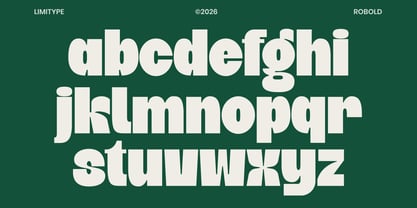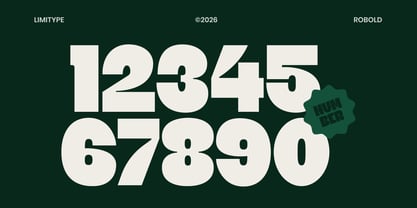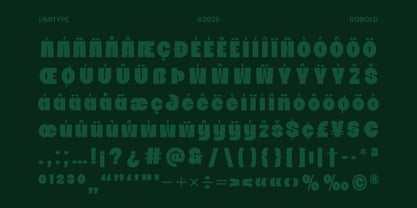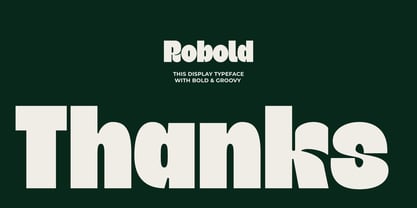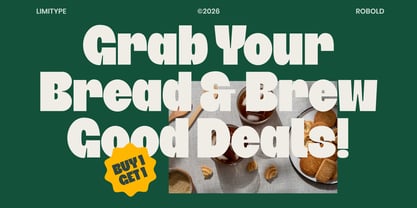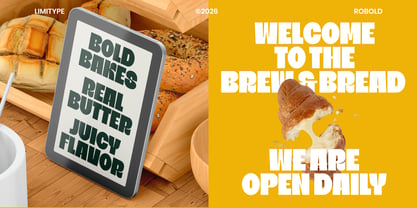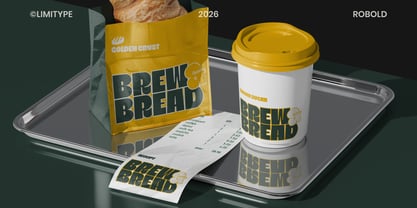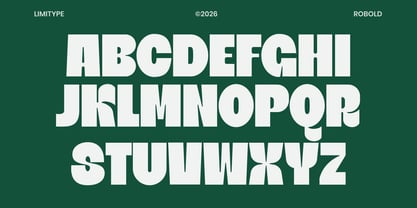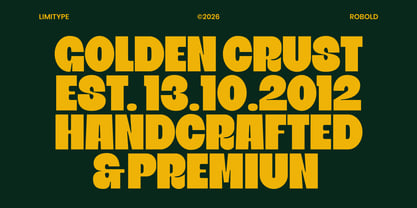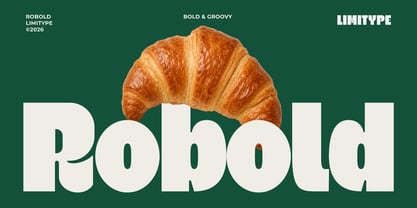
Robold
by limitype
The Robold Font Family was designed by Muhammad Muammar, Furqan Sudirman and published by limitype. Robold contains 1 styles. More about this family
Robold is a bold display font with a cheerful groovy personality, combining solid letterforms, soft rounded corners, and a retro inspired style to create typography that is eye catching, warm, confident, and full of charm. Designed for excellent readability and strong visual impact, it is perfect for branding, logos, food packaging, bakeries, restaurants, posters, headlines, social media, editorial layouts, and a wide range of creative marketing materials, making it an ideal choice for designs that seek a fun, nostalgic, and memorable character.